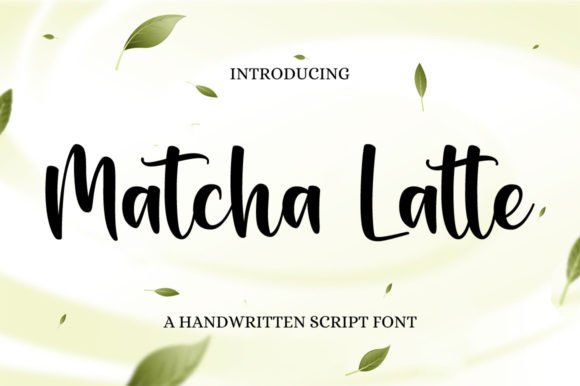
Introducing Matcha Latte Font, the epitome of elegance and timelessness in the world of typography. Crafted with love and precision by the talented Nirmala Creative, this script font is a true gem that will elevate your design projects to new heights.
In a world where first impressions matter, Matcha Latte Font shines as the perfect choice for creating captivating logos, branding, and quotes that leave a lasting impact. Its graceful and fluid strokes effortlessly capture attention, drawing the viewer into a world of exquisite beauty.
With Matcha Latte Font, your words come alive. Each letter is meticulously handcrafted to evoke a sense of warmth and authenticity, making it the ideal companion for expressing heartfelt sentiments and meaningful messages. Whether you're designing invitations, stationery, or social media graphics, this font adds a touch of sophistication that will make your creations truly stand out.
But Matcha Latte Font is more than just a pretty face. It is designed with the reader in mind, ensuring optimal legibility and ease of reading. Its meticulously designed characters flow seamlessly together, creating a harmonious reading experience that keeps your audience engaged. Say goodbye to eye strain and hello to a font that effortlessly guides your readers through your content.
The versatility of Matcha Latte Font knows no bounds. From elegant wedding invitations to eye-catching packaging designs, this font adapts effortlessly to any project, breathing life into your creativity. Its timeless appeal transcends trends, guaranteeing that your designs will remain relevant for years to come.
Embrace the power of Matcha Latte Font and unlock a world of endless possibilities. Let your imagination run wild as you explore the countless ways to incorporate this font into your designs. Whether you're a seasoned designer or just starting out, Matcha Latte Font empowers you to create with confidence and finesse.